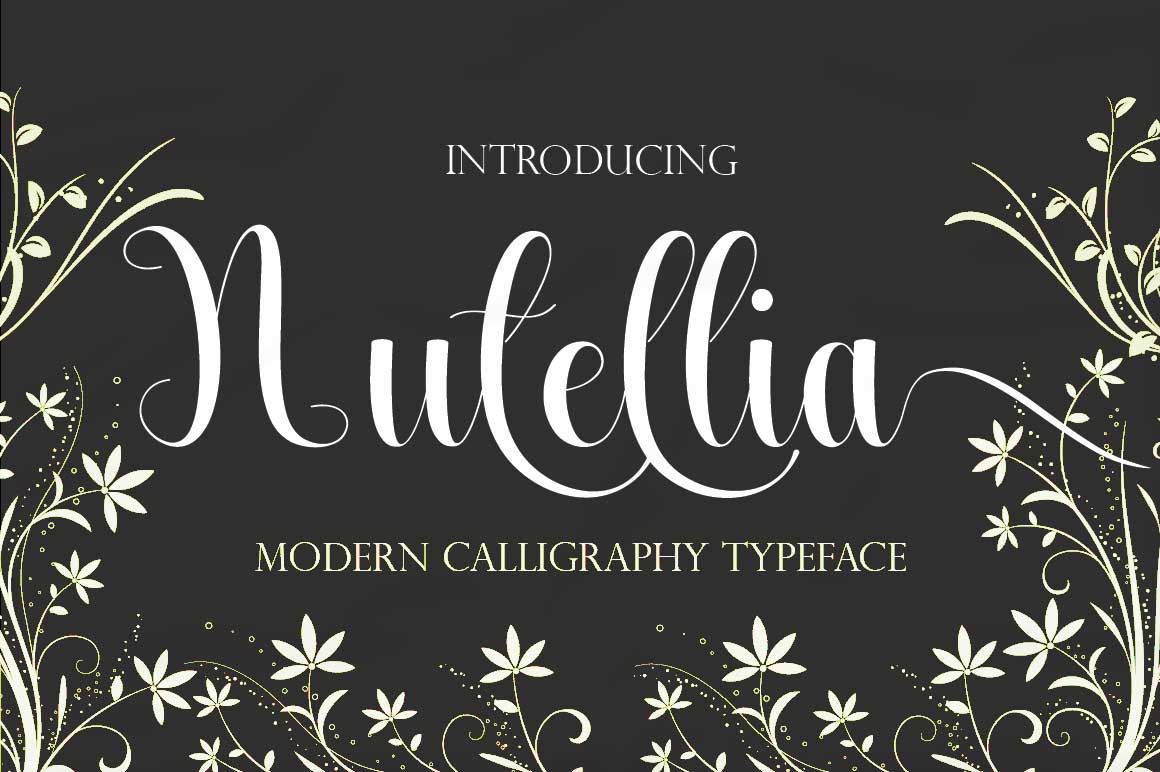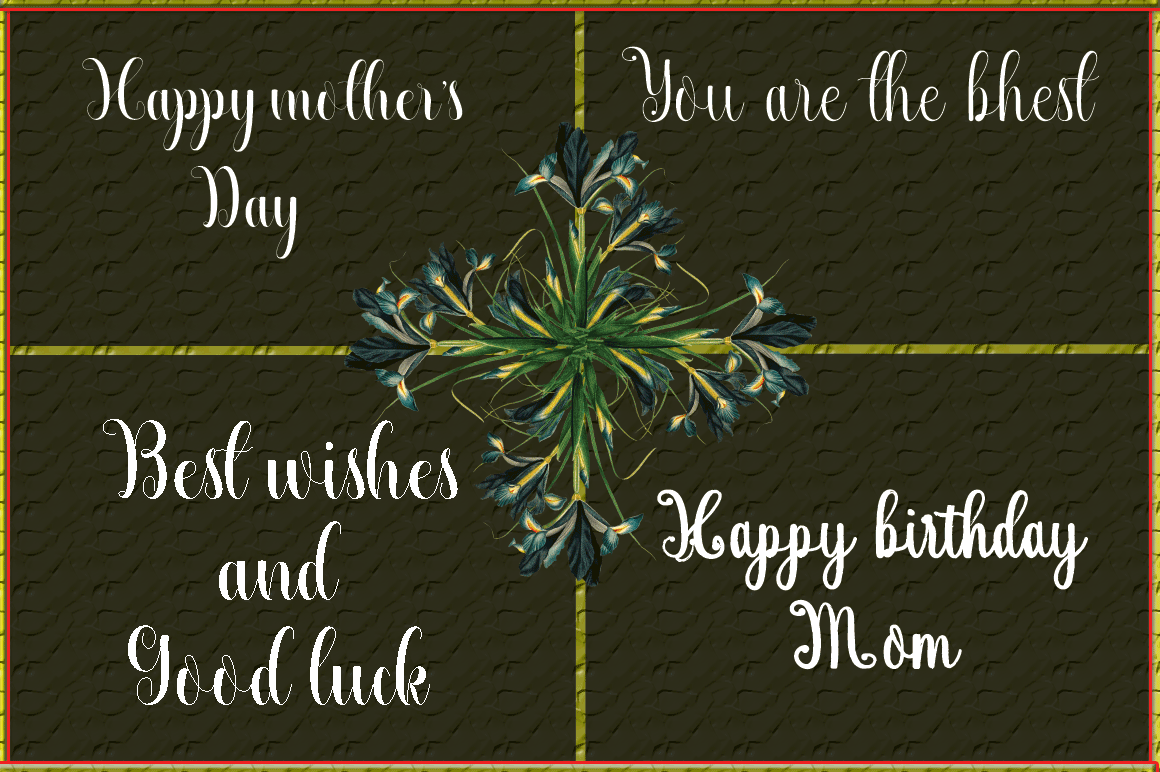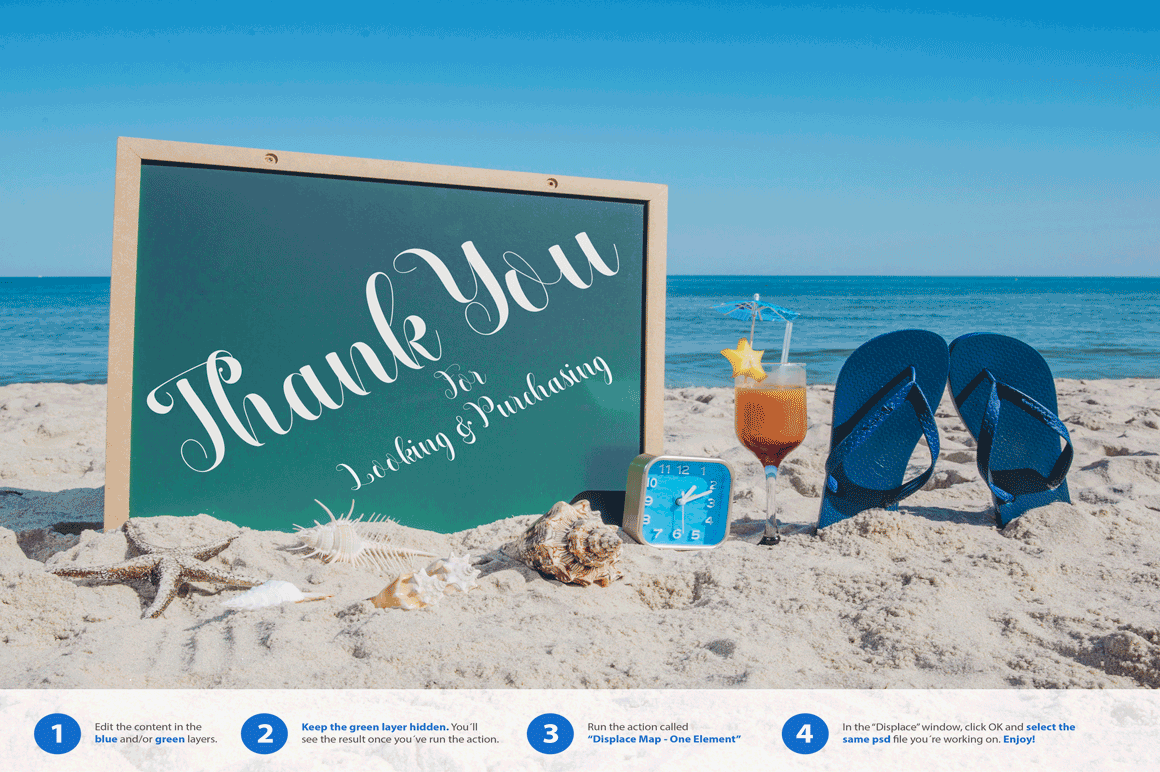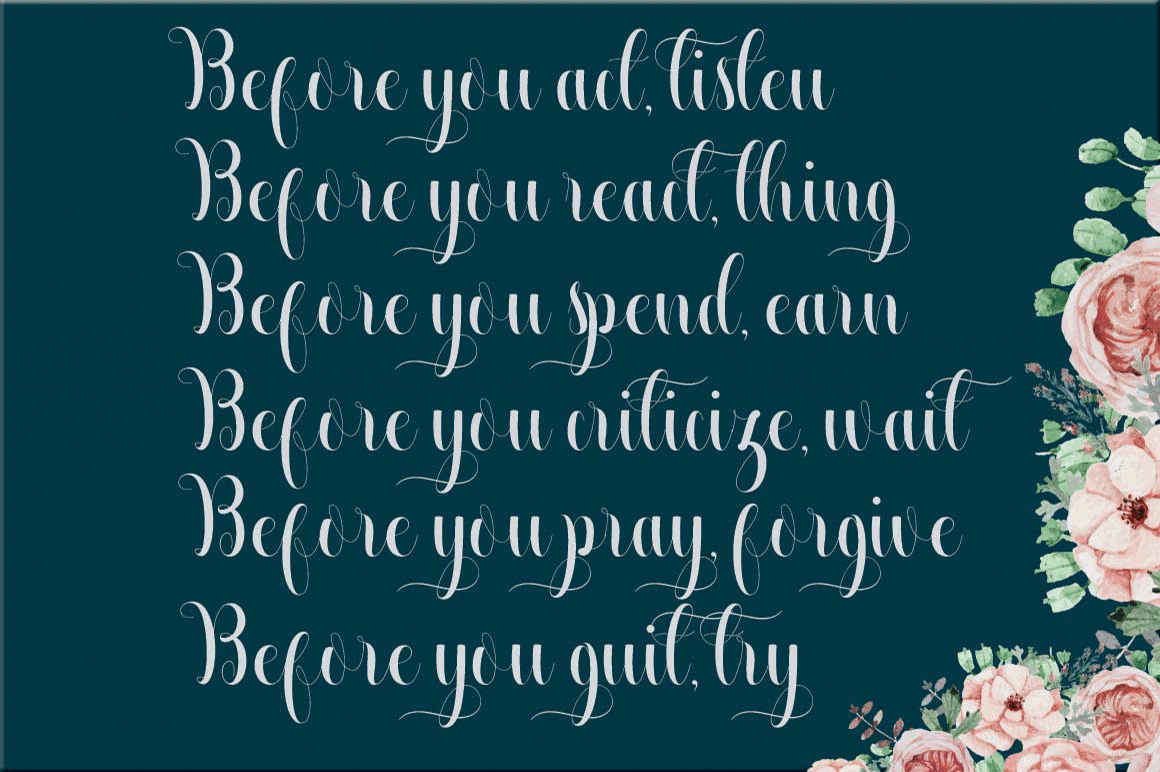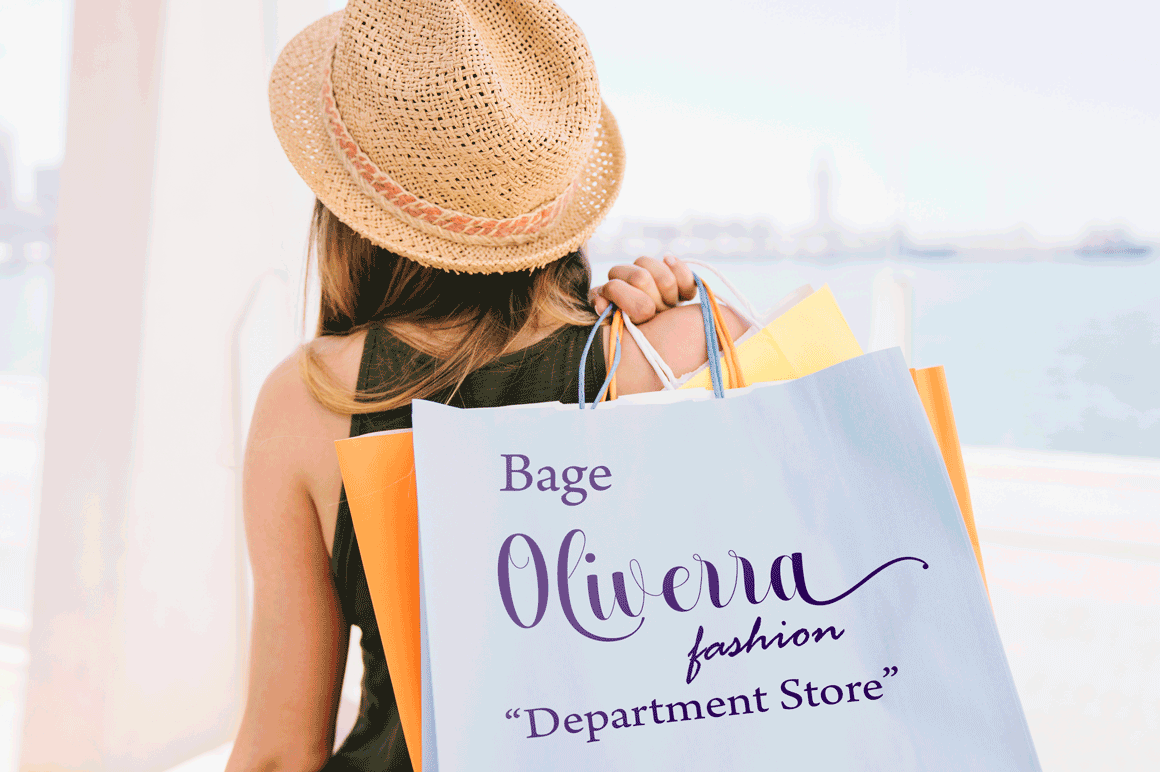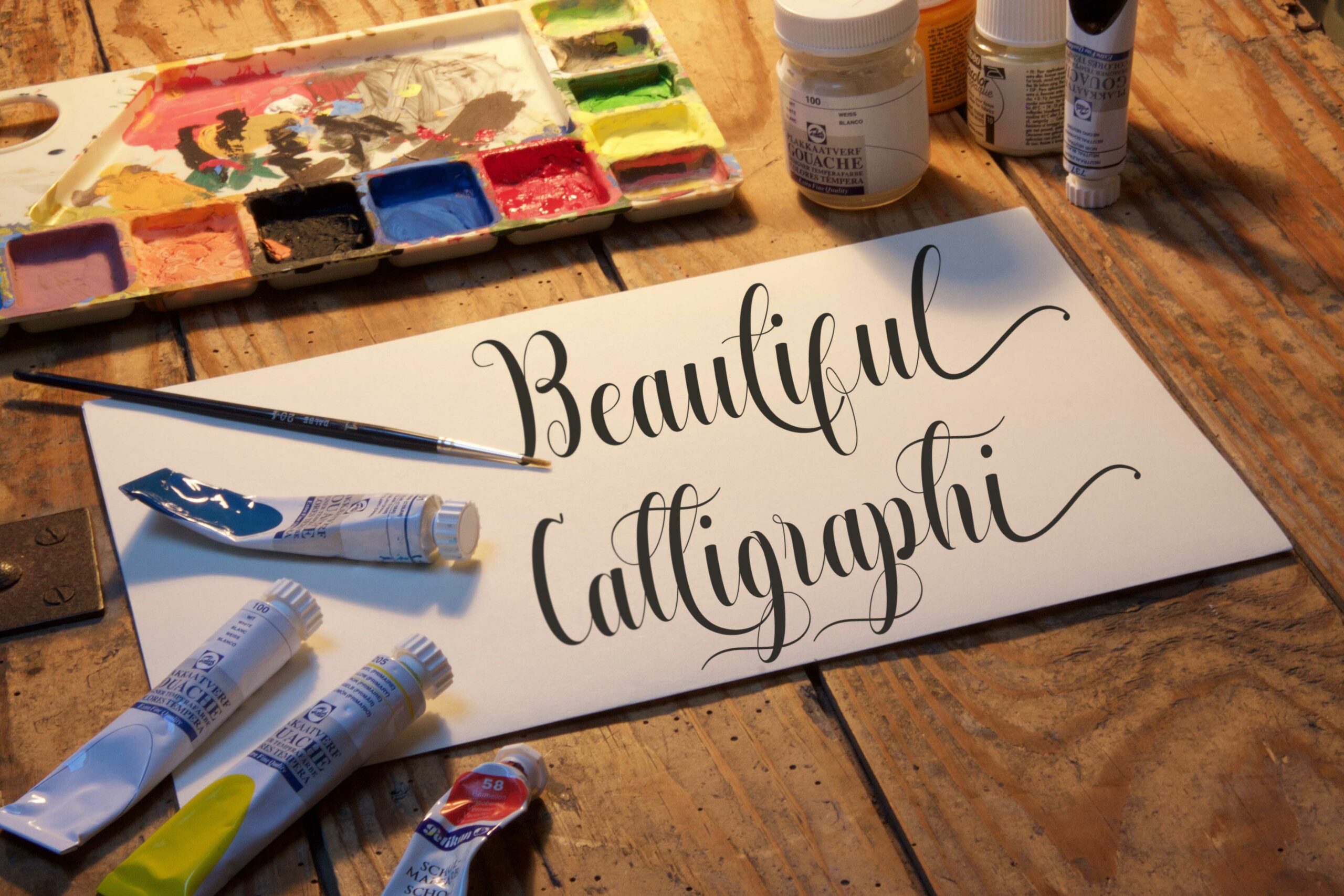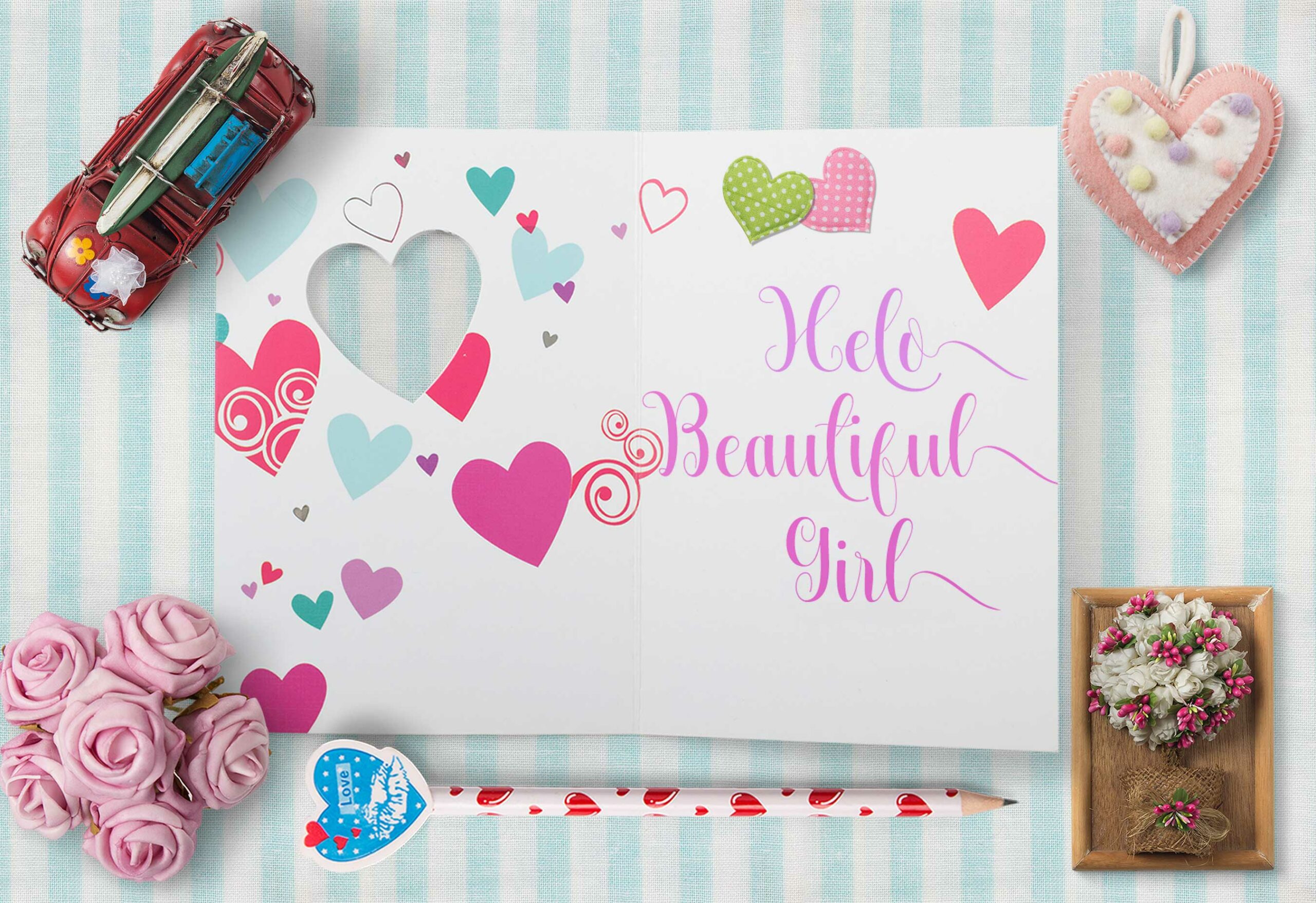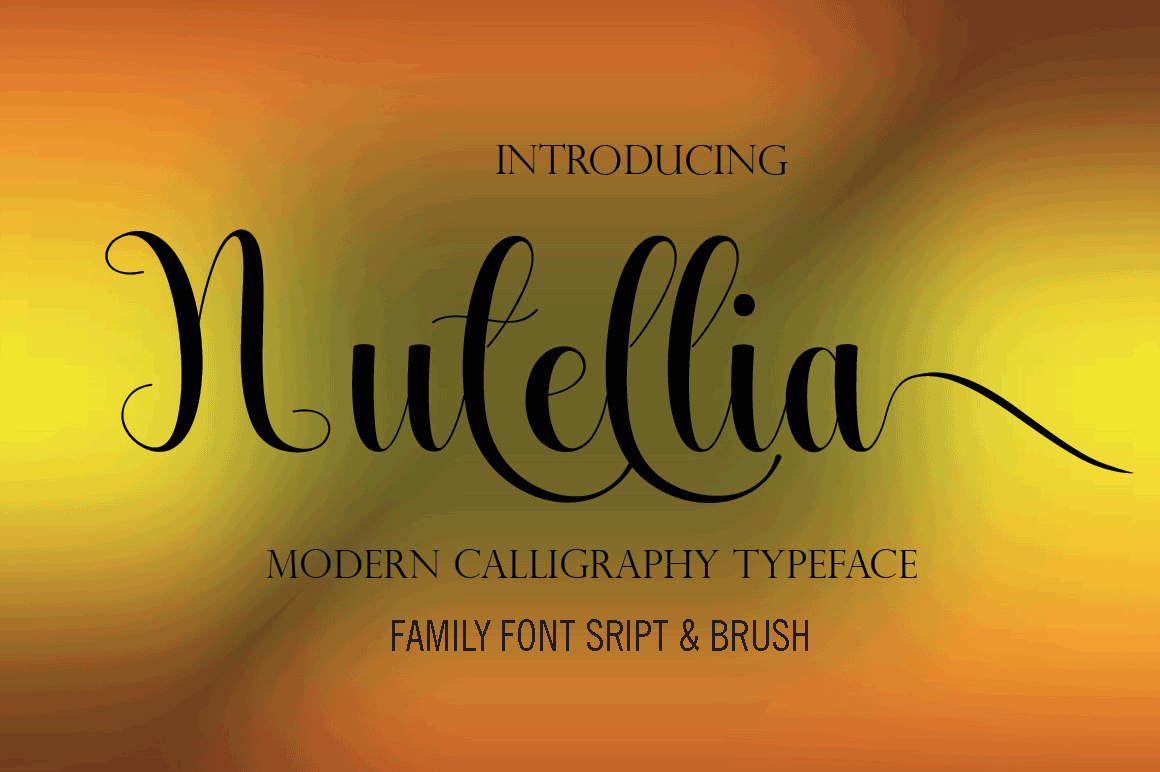
Nutellia Font
About Nutellia Font
Nutellia is a stunner of a script font; this robust and diverse font comes in a ton of styles and stylistic options. This elegant and stylish script font is both current and classic, making it a great script option to be used time and time again.